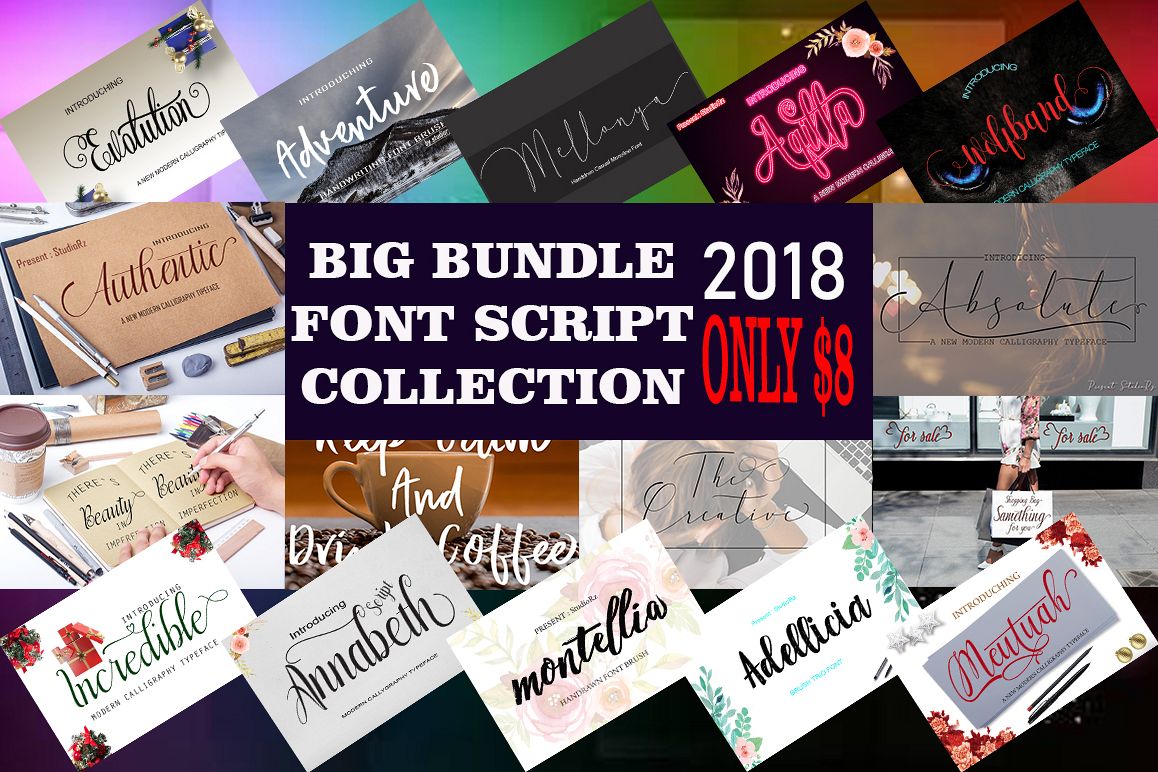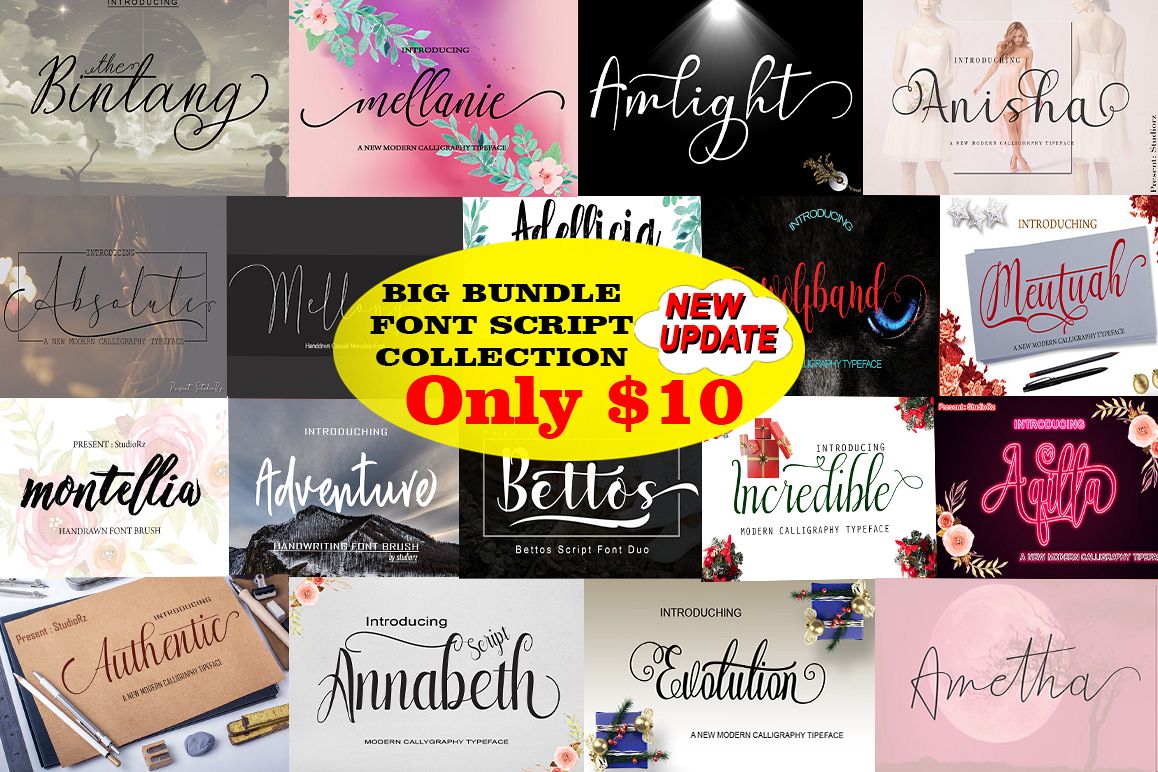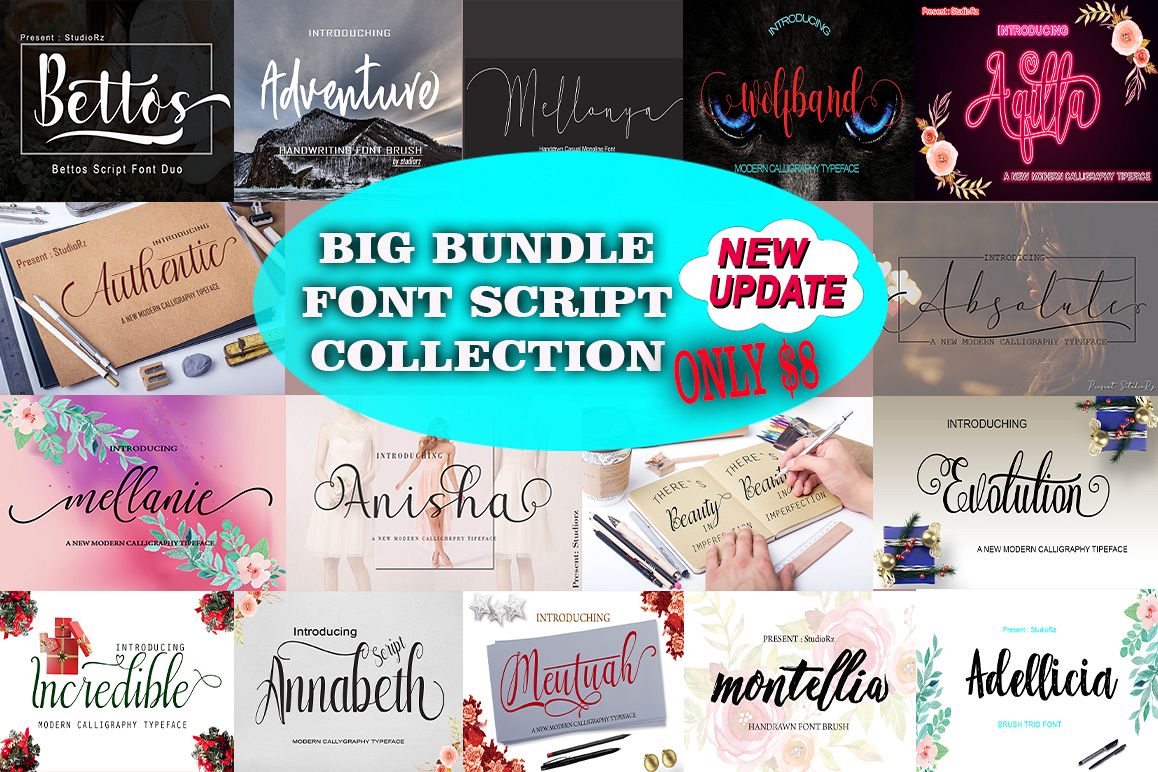
Fantastic Bundle
The Valentine
Christina
montellia
BettosOutline
Revolution
Ametha
Stainbeck
beloved
Evolution
Shark
Amlight
Bettos
Annabeth
Authentic
incredible
Mellonya
Adellicia
wolfband
Meutuah
AQILLA
Adventure
Absolute
Anisha
lover
mellanie
The Bintang
ladis
Fantastic Bundle has 27 item unique fonts, you can get yourself 24 hand drawn script fonts in one magnificent swirl of a deal. Mixing the classic with the modern, these breathtaking brush fonts are just perfect for everything from wedding invitations to logos to T-shirts! Toss in loads of OpenType features such as swashes, Initial and Terminals Forms, and standard ligatures, and the possibilities are endless.
With an assortment of OpenType features including Standard Ligatures, Stylistic Alternates and Stylistic Sets, your latest project will really stand out with a real natural, elegant script style.